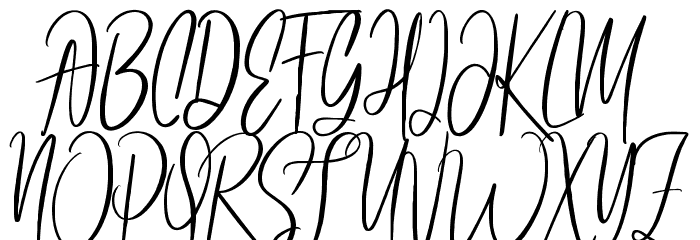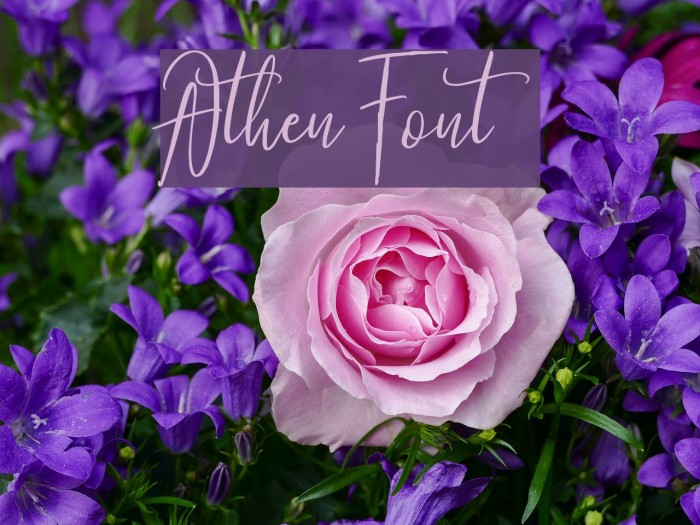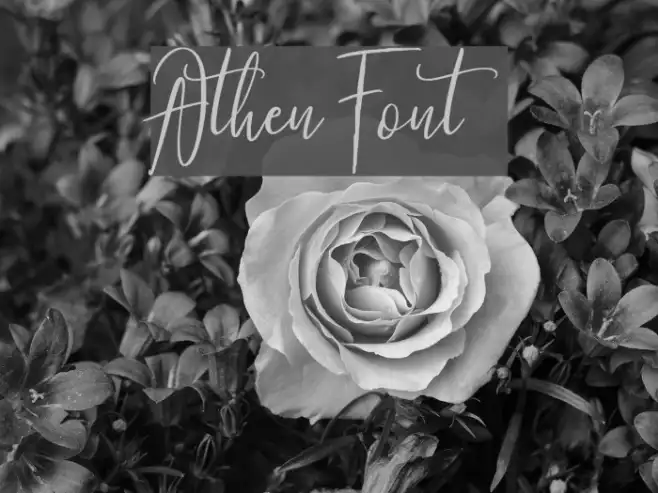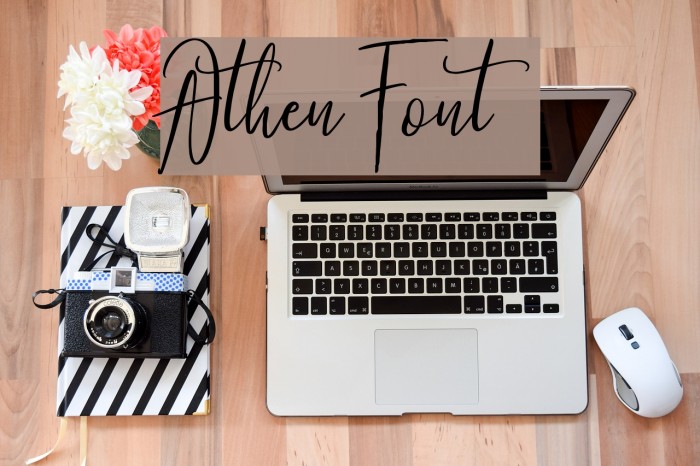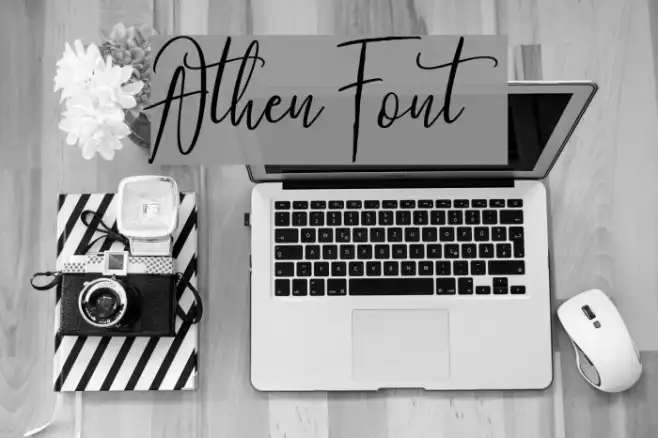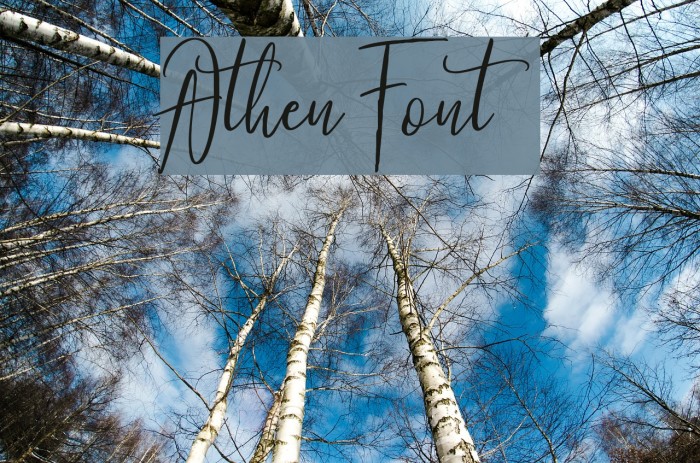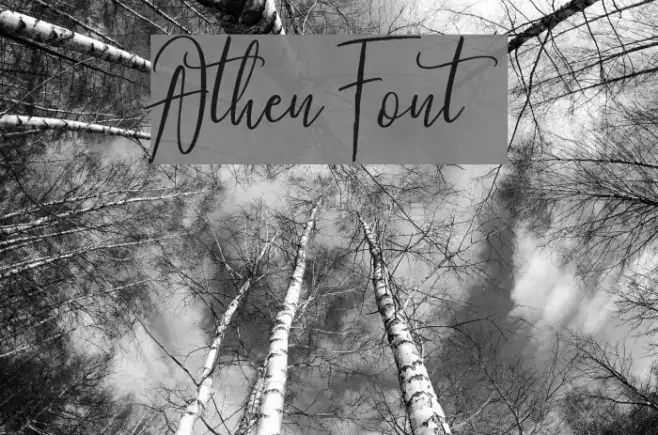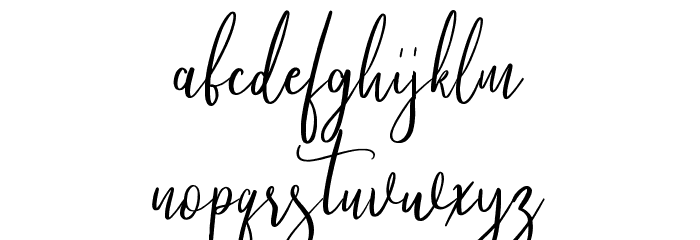
Athen Font
This font is a beautifully crafted script typeface that exudes elegance and sophistication. The characters are designed with flowing, interconnected strokes that give a sense of fluidity and grace. The uppercase letters are particularly ornate, featuring extended swashes and loops that add a decorative flair. The lowercase letters maintain a consistent style, with smooth curves and a slightly slanted orientation, enhancing the handwritten feel. This font is perfect for projects that require a touch of class and personality, such as wedding invitations, branding, and high-end product packaging. Its intricate design makes it stand out, while still being legible and versatile.
An elegant script font with flowing, interconnected strokes and decorative swashes.
• Proposed Projects: Ideal for wedding invitations, luxury branding, and elegant product packaging.
• Category: Script
• Contrast: Medium
• Overall Style: Elegant
• Use Case: Logos, Invitations, Branding